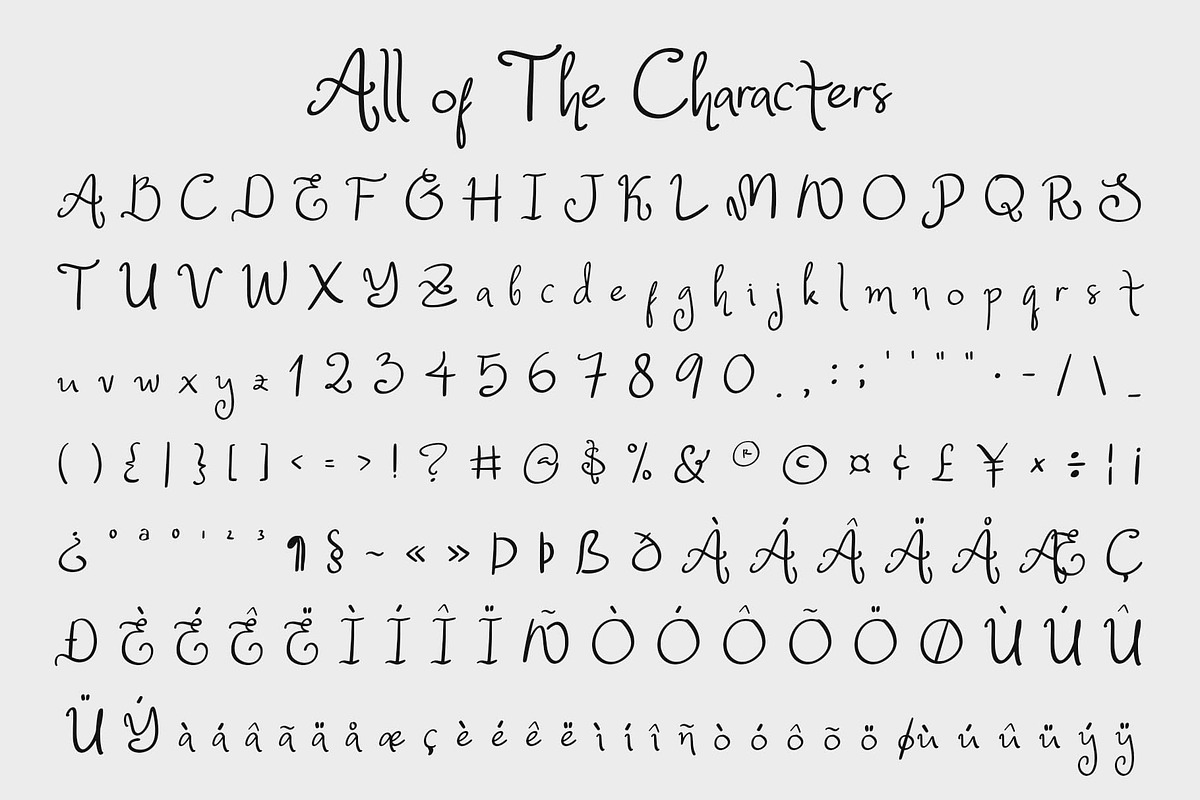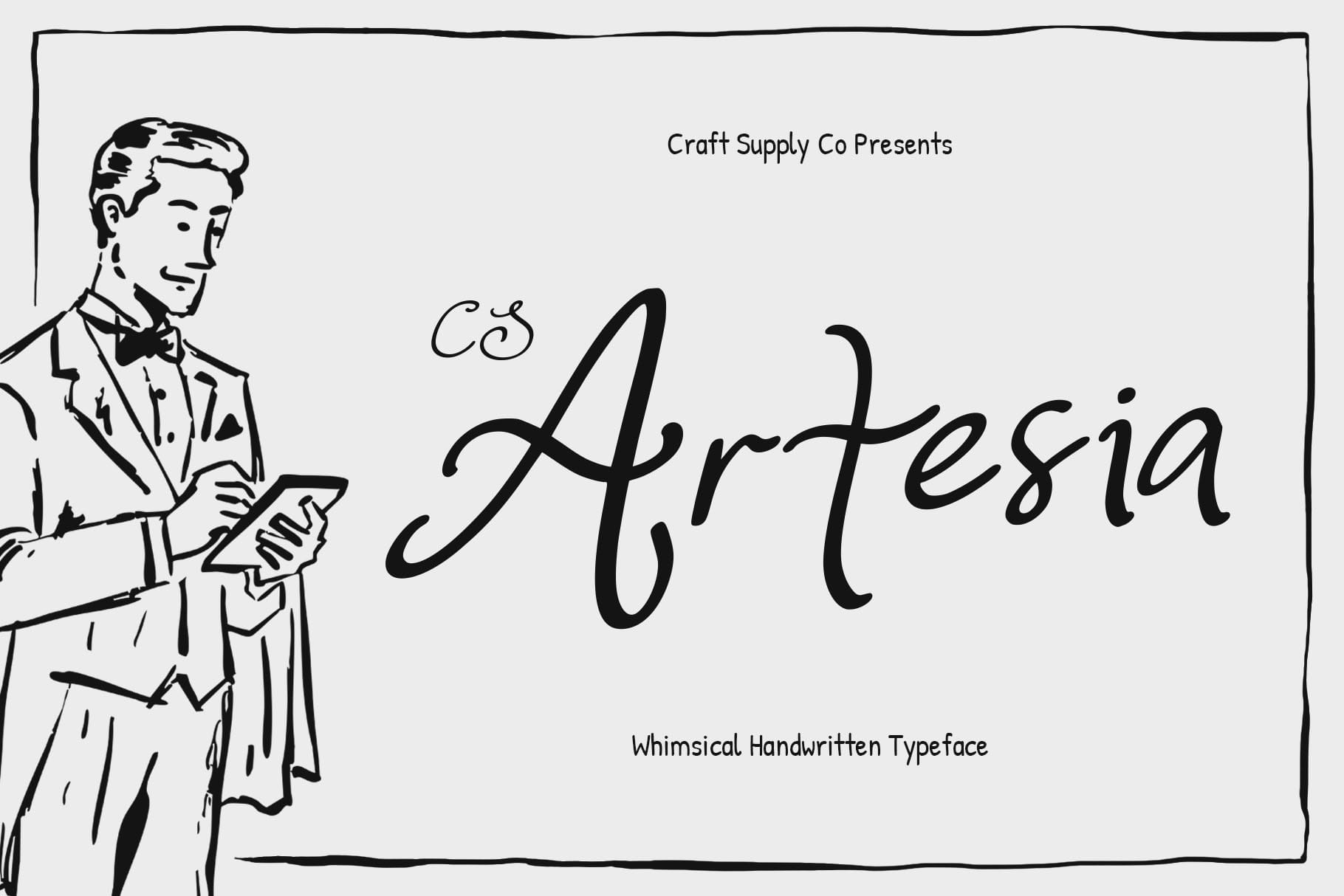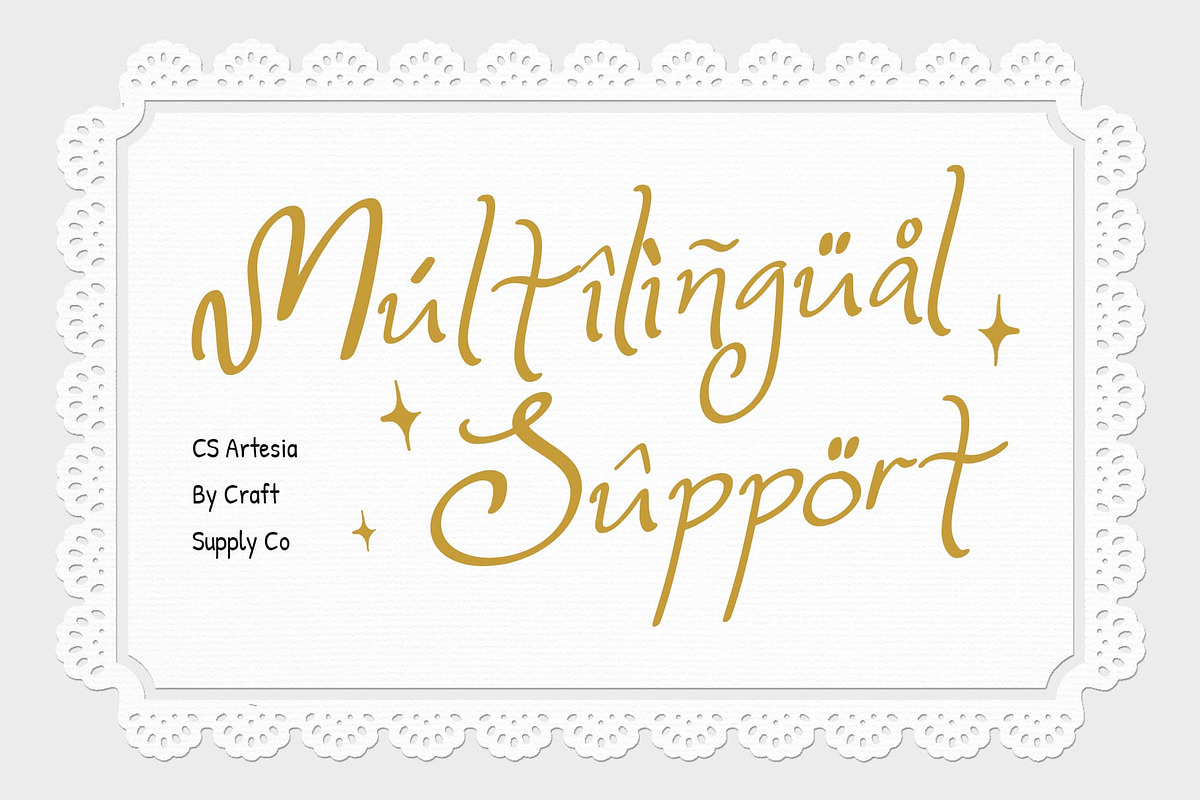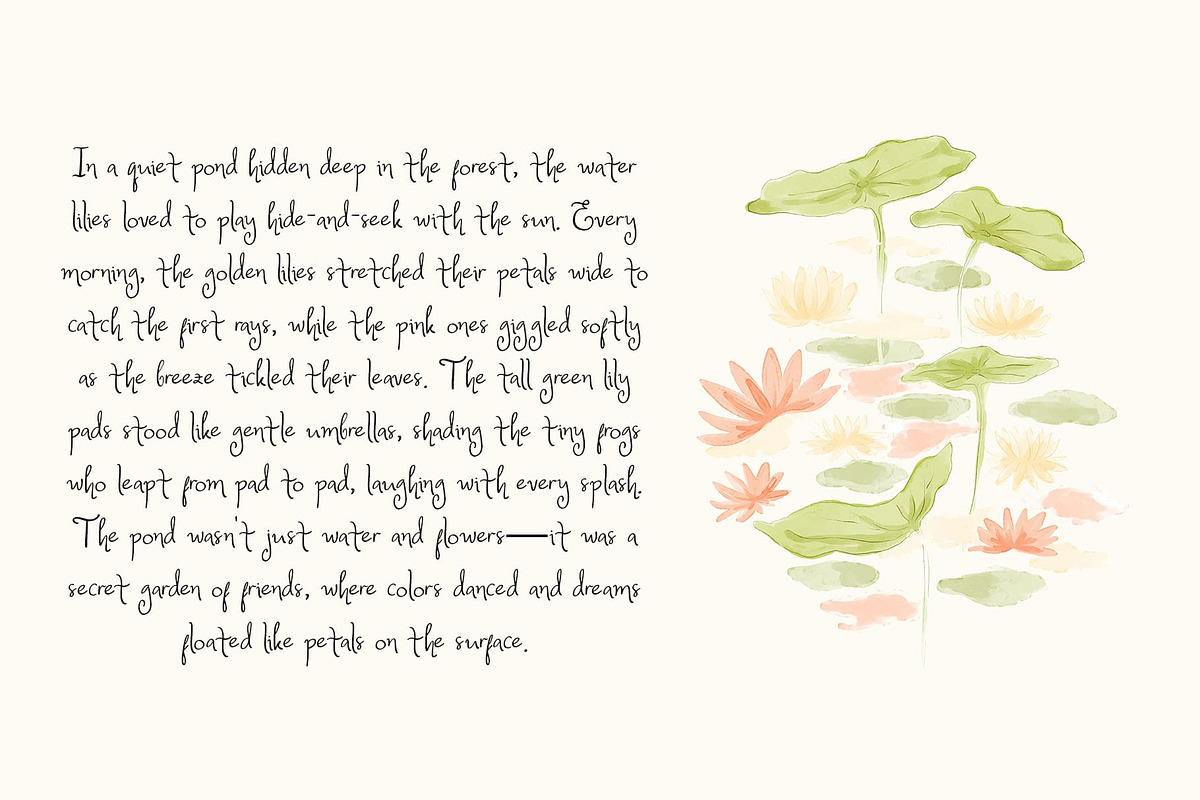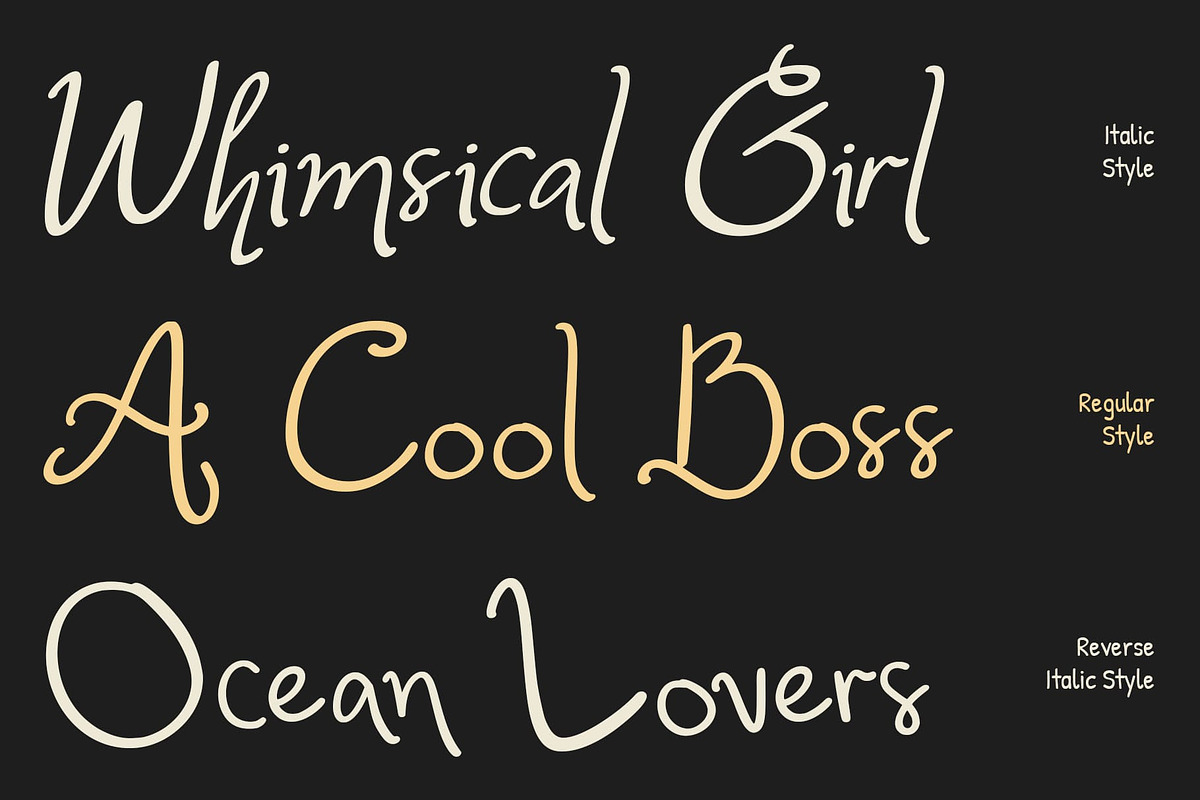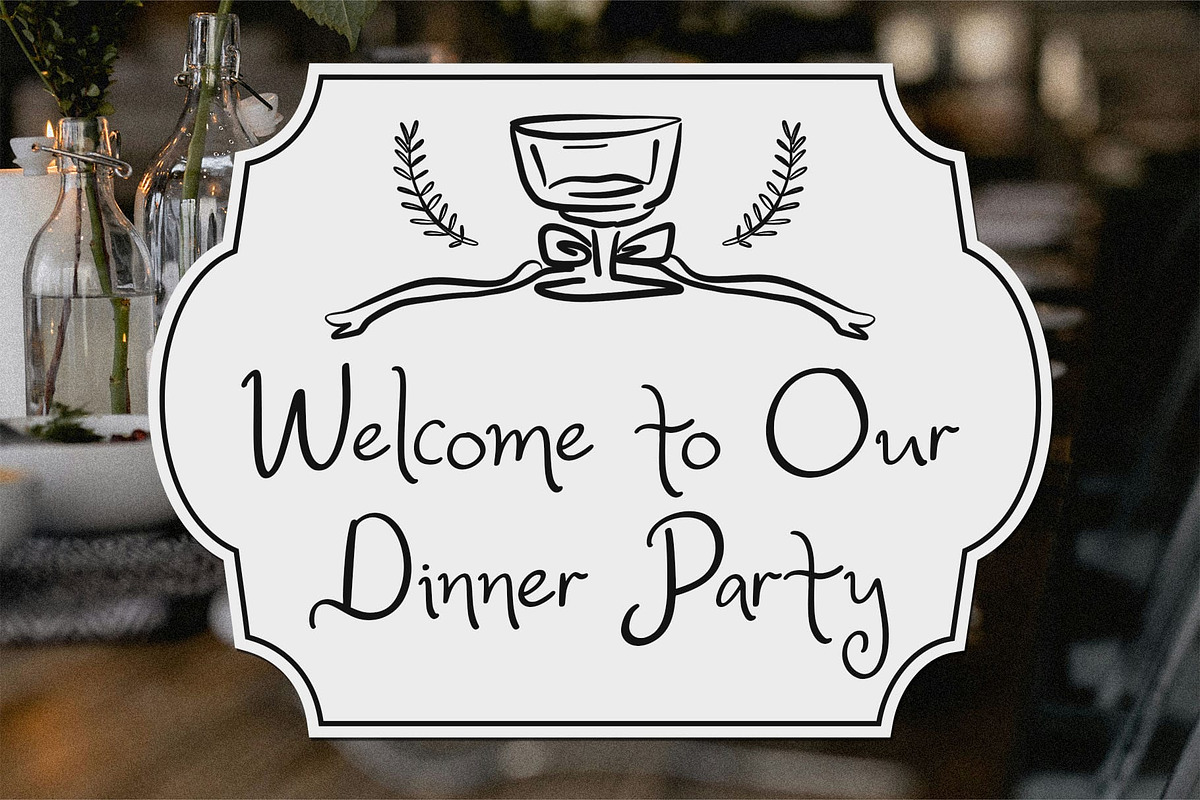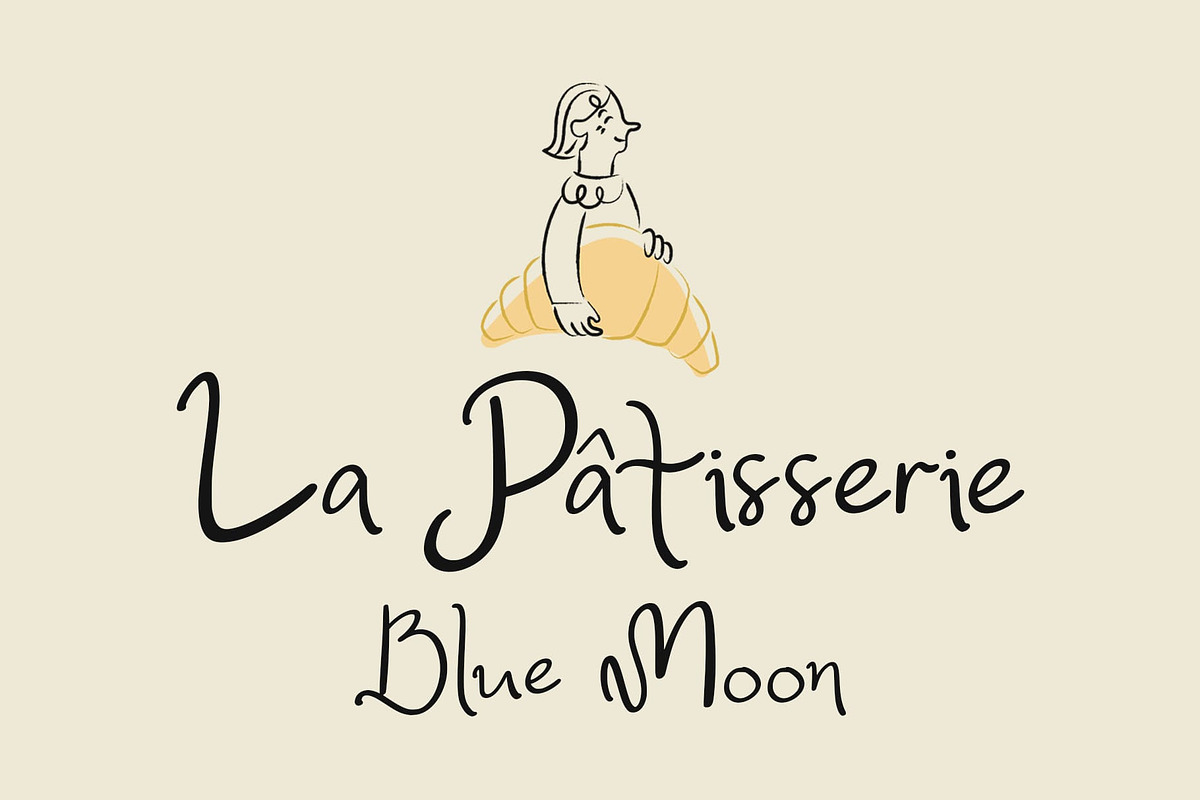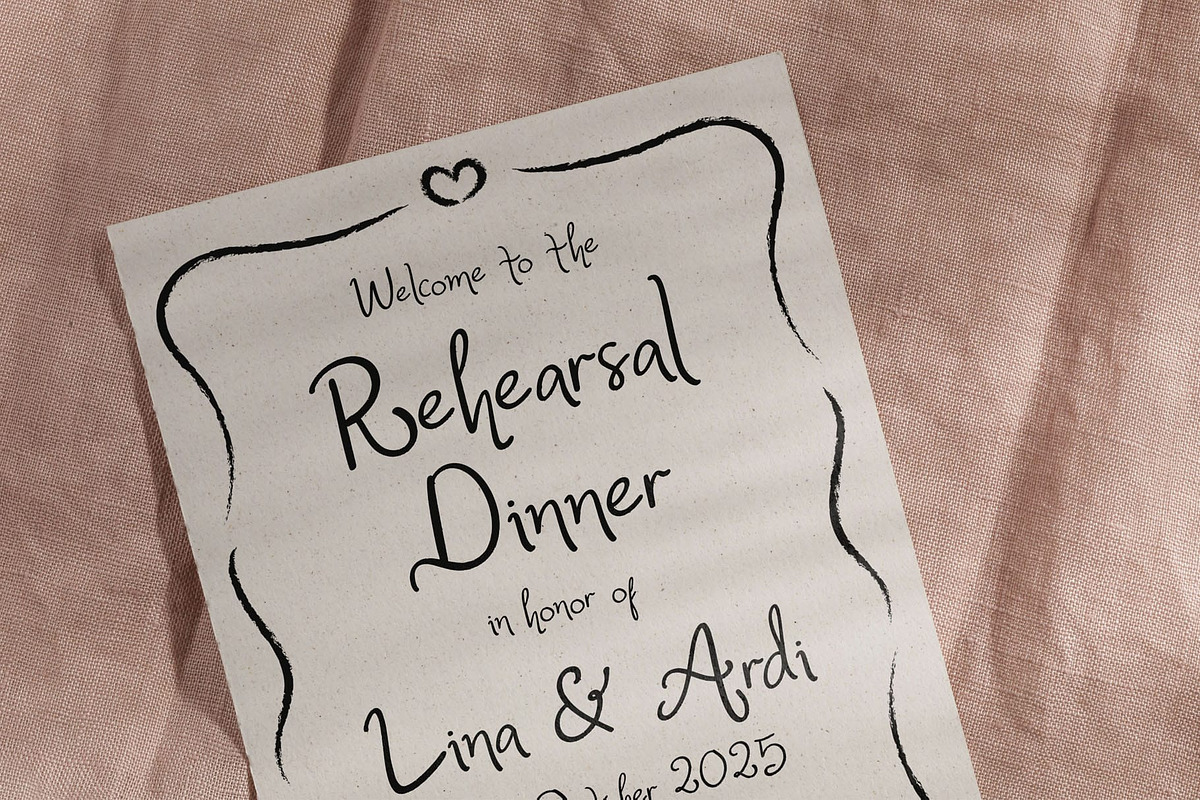
CS Artesia – Whimsy Handwritten Font
CS Artesia: Handcrafted Beauty with Whimsical Charm
Whimsical Handwritten Font with Expressive Flair This is a whimsical handwritten font that captures the beauty of natural curves and hand-drawn creativity. Every stroke flows gracefully, creating a sense of warmth, personality, and sophistication. With its delicate yet confident form, this font brings a personal, expressive touch to any design that values beauty, emotion, and individuality.
Beautiful Curves for Graceful Expression The defining feature of this font lies in its smooth, flowing curves. Each letter is designed to move harmoniously with the next, evoking the rhythm of fine handwriting. This graceful structure makes it ideal for projects that want to convey charm, refinement, and feeling perfect for fashion, art, aesthetic style and lifestyle brands.
Hand-Drawn Traditional Style for Authentic Personality This font celebrates the charm of handcrafted design. Its hand-drawn details add authenticity and depth, creating a sense of intimacy that digital perfection often lacks. This traditional flair makes it perfect for wedding invitations, boutique logos, and other designs that seek to communicate care and craftsmanship.
Perfect for Stylish and Creative Designs From fashion editorials to luxury branding and creative posters, this font adapts effortlessly to a variety of stylish contexts. Its whimsical nature and refined form balance creativity and sophistication, ensuring every piece you create feels timeless, expressive, and beautifully personal.
- CS Artesia Regular
- CS Artesia Italic
- CS Artesia Reverse Italic